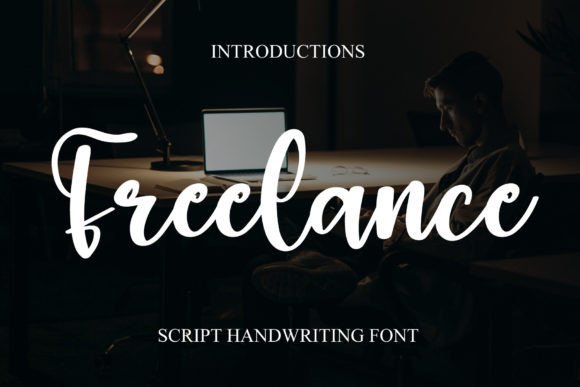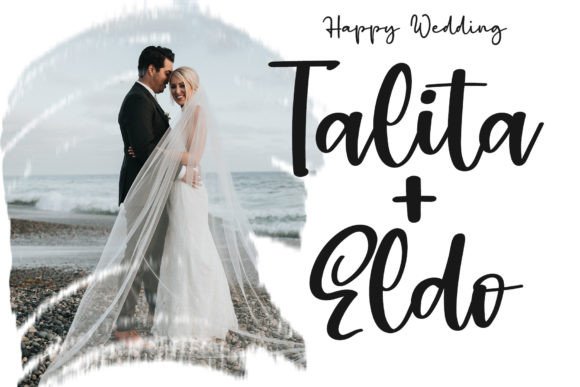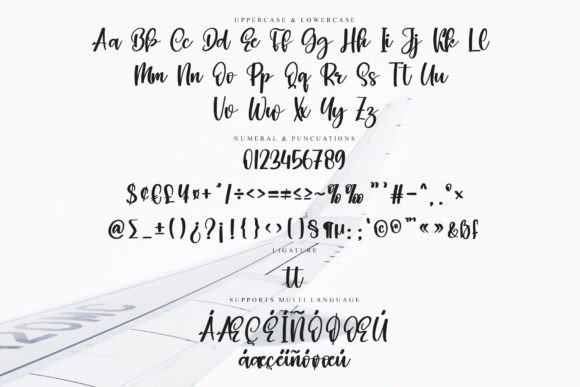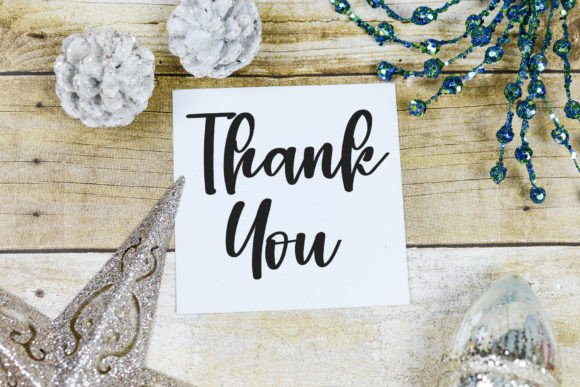
The Perfect Script for Your Next Project: Freelance Font
Have you ever stared at a blank canvas, waiting for the perfect idea to strike? That’s exactly what happened to me when I first laid eyes on the Freelance Font. Its elegant curves and delicate lines had me hooked from the very start. I knew right then and there that this font was destined for greatness.
The Freelance Font is a stylish and dainty script font, perfect for any project that requires a touch of sophistication. Whether you’re working on logos, branding projects, labels, or photography, this font is sure to elevate your design to the next level. Its PUA encoding means you can access all of the glyphs and swashes with ease, making it a valuable tool for any designer looking to add a personal touch to their work.
Key Features of Freelance Font
- Unique Characteristics: Freelance Font features a unique blend of modern and traditional design elements, with a distinctive flair that sets it apart from other fonts.
Freelance Font Review